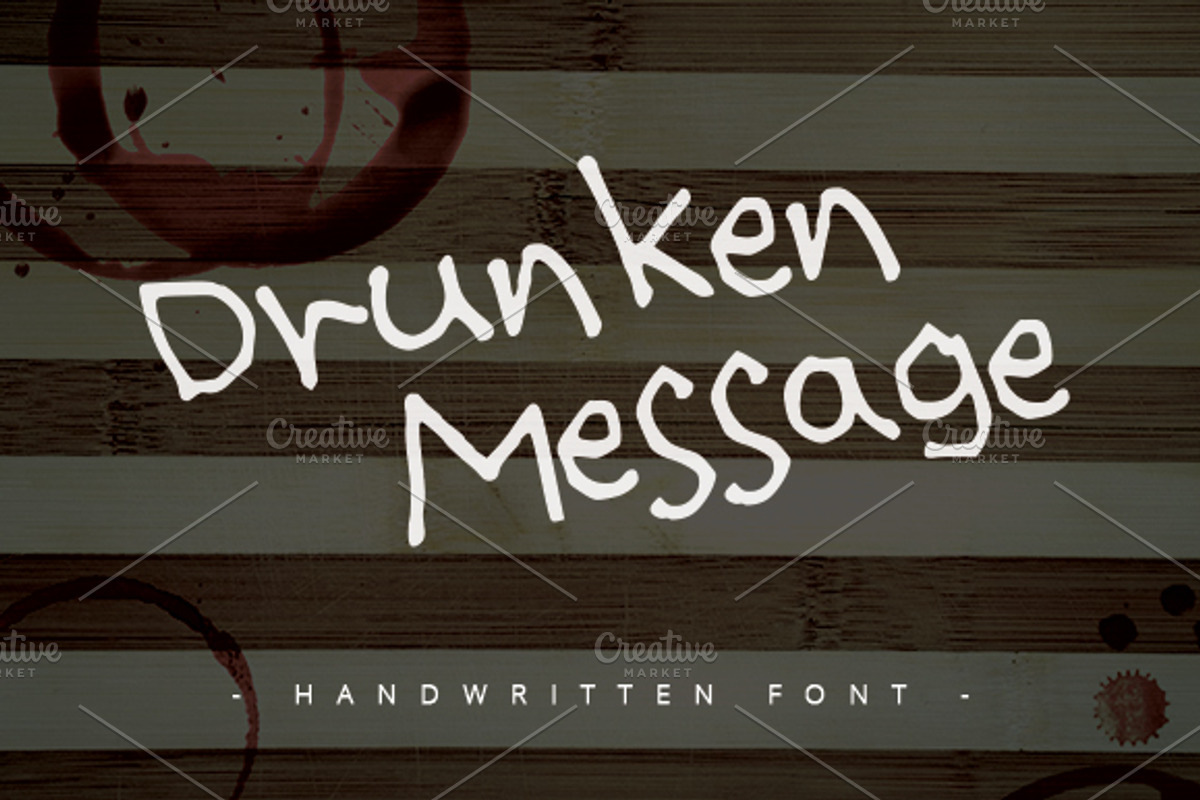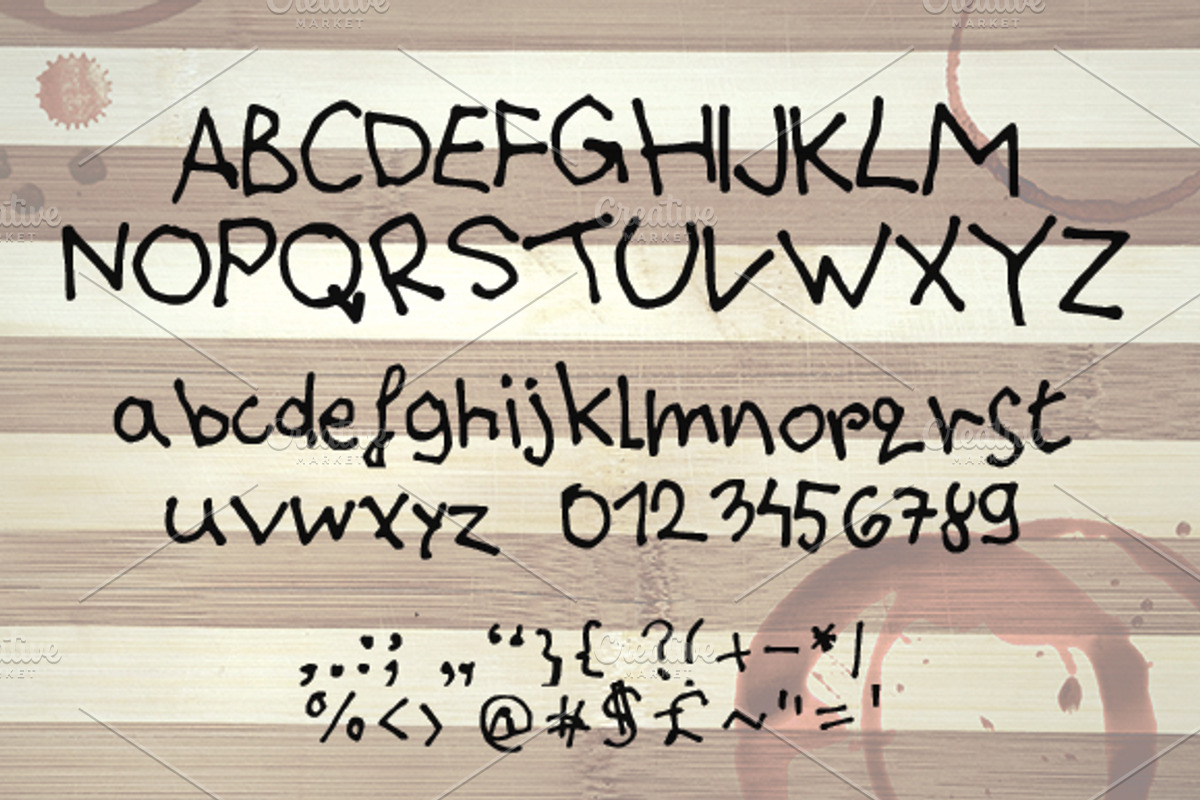
Drunken Message ~ Handwritten Font ~
Drunken Message ~ Handwritten Font ~ by MHLY is a font selected for branding, posters, packaging, typography.
Why Drunken Message ~ Handwritten Font ~ is worth a look
Drunken Message ~ Handwritten Font ~ by MHLY fits naturally into Branding, posters, packaging, typography.